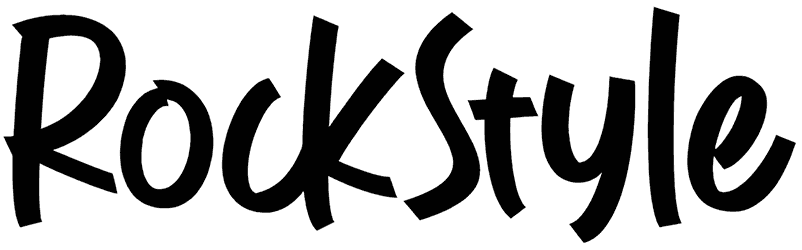
RockStyle Font
Some organic words in the warm frame make your writing design distinction, and here, RockStyle can take it nicely. This kindergarten font holds a bold, cursive handwritten style with a friendly mood that can harmonize with various themes.
This fancy doodle font comes up to make a tremendous delight in designing many street posters, games, storybooks, invitations, logos, covers, or such like to successfully perform. Give it a shot and see its friendly, adorable, and exquisite creation.